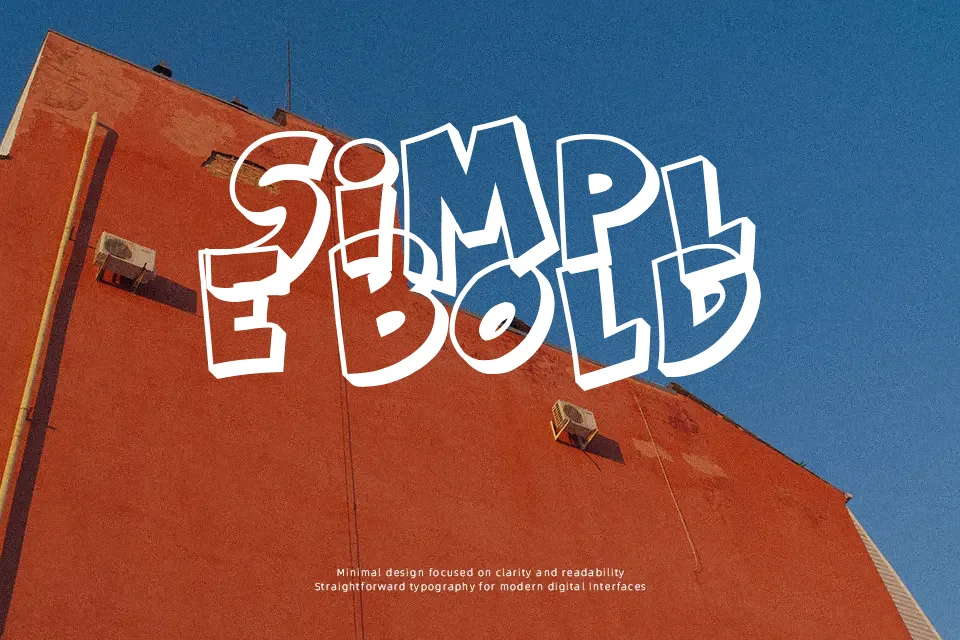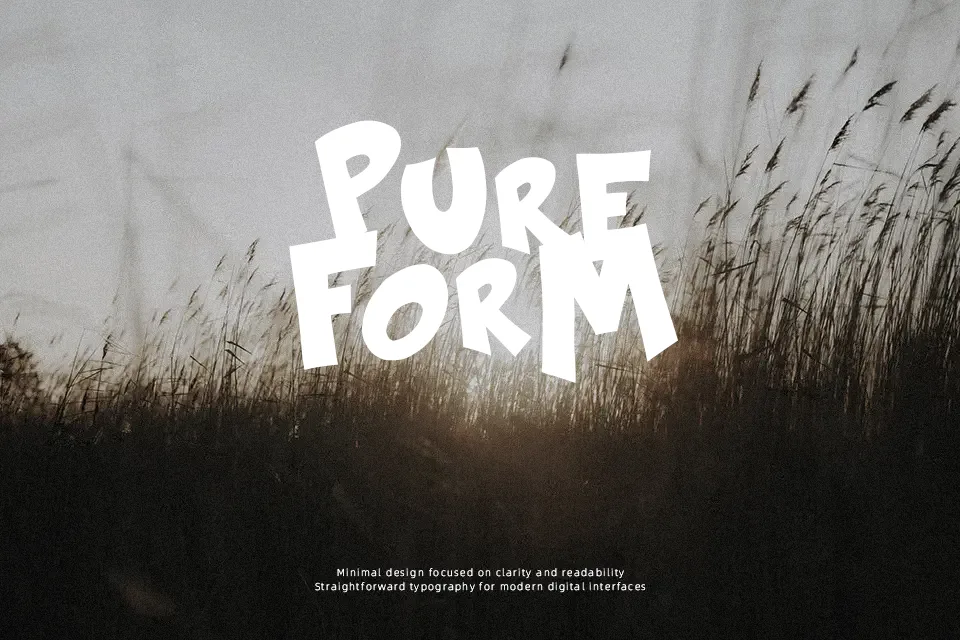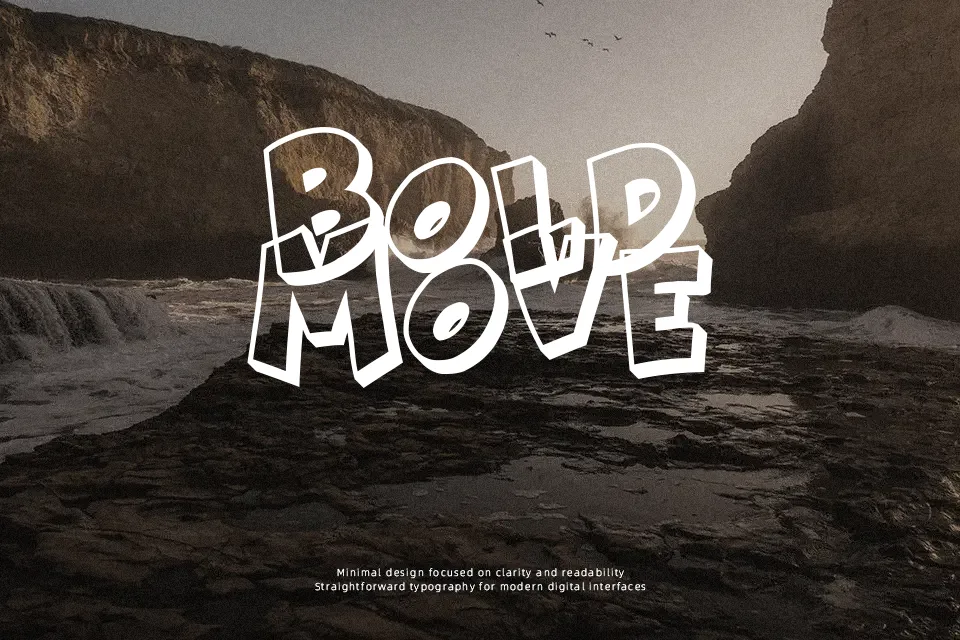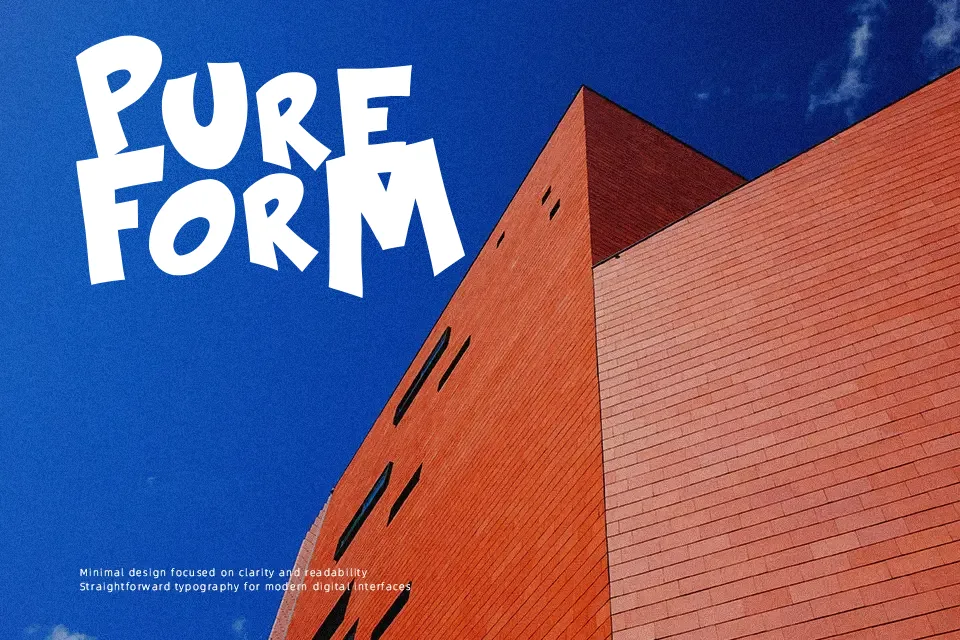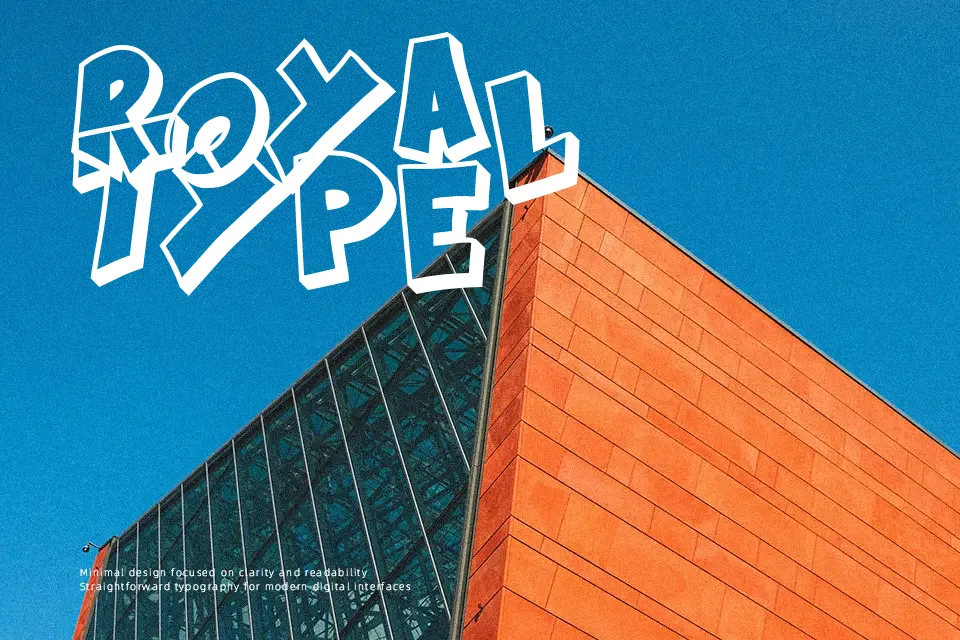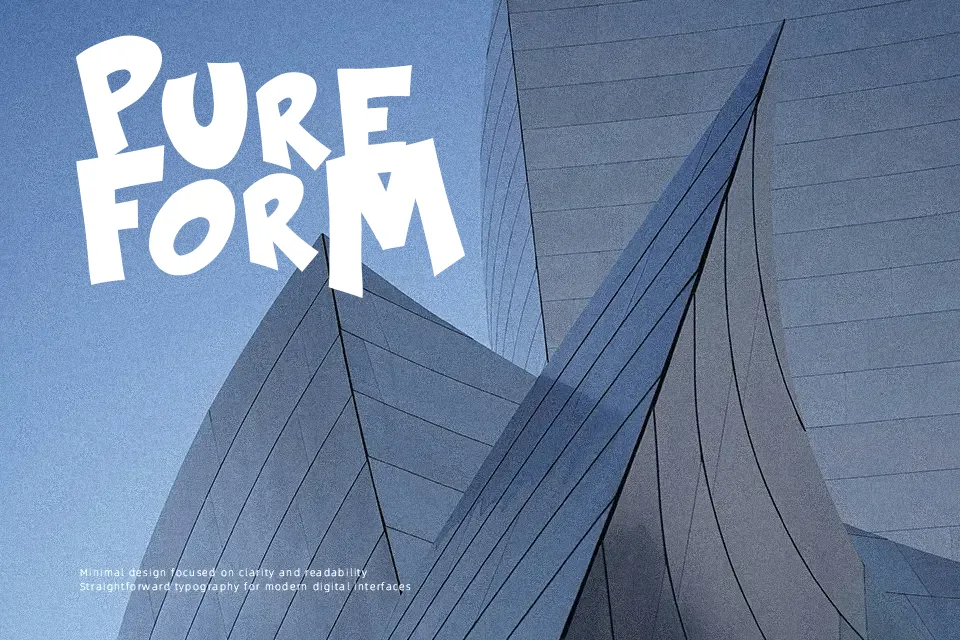
Kraash Font
Designed by imagex
Bursting with chaotic energy, Kraash Font leans into sharp edges, uneven strokes, and exaggerated spacing to mimic comic book sound effects. The letters feel loud and animated, giving any text a sense of motion and impact. It works best in short phrases like game titles, YouTube thumbnails, or action-themed posters where attention is key. However, the aggressive styling reduces legibility in longer text and smaller sizes. From a usability standpoint, it shines in high-contrast layouts but quickly becomes overwhelming when overused or paired with equally busy graphics.
– comic-style action titles
– gaming thumbnails and overlays
– poster headlines for events
– kids-themed dynamic graphics
– long paragraph text
– professional business documents
– minimalist branding systems
– small-size readability
Perfect for gaming, headline, and kids, with a bold and comic style.